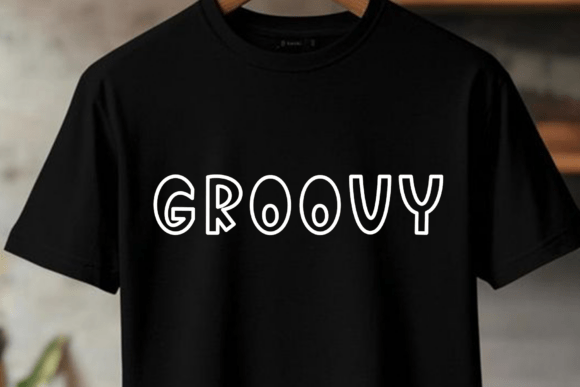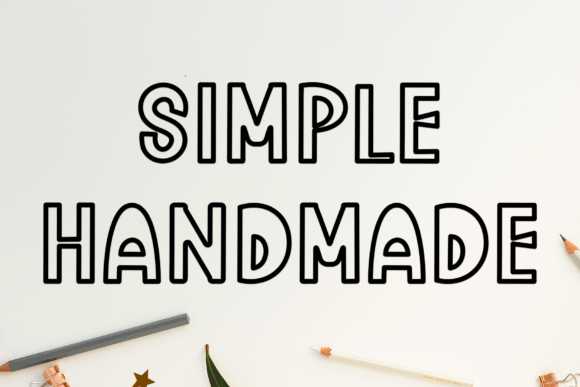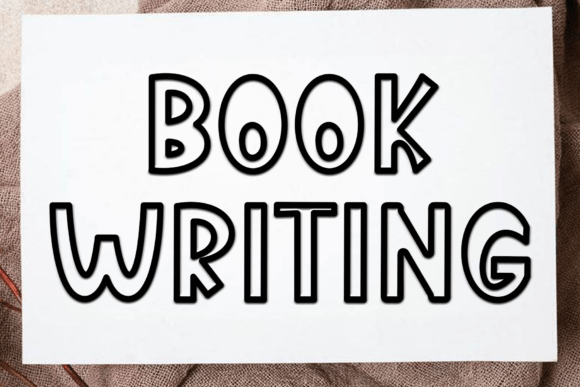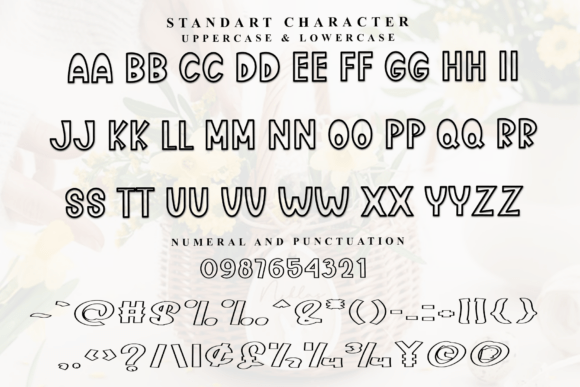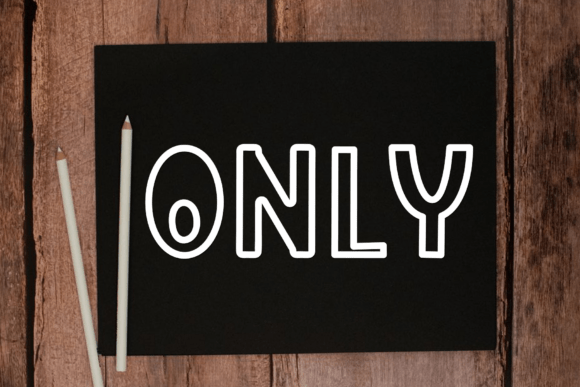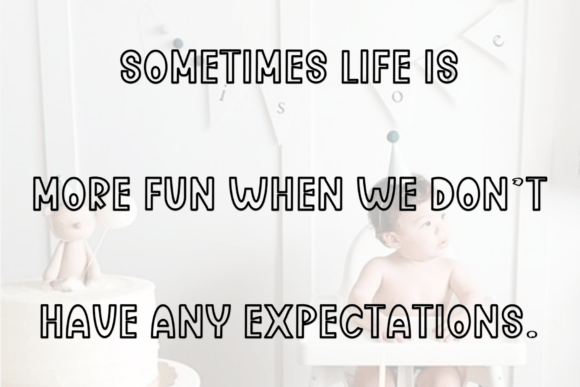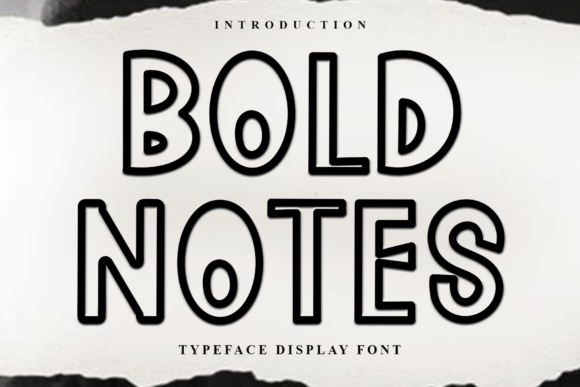
Introducing Bold Notes Font: The Ultimate Retro-Modern Display Typeface
In the world of typography, a good font can make all the difference in capturing the attention of your audience. If you’re a designer or craft looking for a typeface that exudes confidence and personality, look no further than Bold Notes Font. This clean and confident display font is perfect for headings, posters, and attention-grabbing titles, offering a bold personality while staying versatile and legible.
A Retro-Modern Outline Style
Bold Notes Font boasts a unique retro-modern outline style that is sure to turn heads. The font’s bold lines and geometric shapes create a striking visual effect that is reminiscent of classic design from the past, yet still feels fresh and modern. This makes it perfect for designers and crafts looking to add a touch of nostalgia to their work, while still keeping it contemporary and relevant.
Perfect for Editorial Design and Branding Projects
Bold Notes Font is particularly well-suited for editorial design and branding projects that require a punch. Whether you’re working on a magazine spread, a poster campaign, or a brand identity project, this font is sure to make a statement. Its bold personality and confident style make it perfect for grabbing the attention of your audience and communicating your message in a clear and concise way.
Key Features of Bold Notes Font
• Clean and confident design: Bold Notes Font features a clean and confident design that is perfect for headings, posters, and attention-grabbing titles.
• Retro-modern outline style: The font’s retro-modern outline style gives it a unique and striking visual effect that is sure to turn heads.
• Versatile and legible: Despite its bold personality, Bold Notes Font remains versatile and legible, making it perfect for a wide range of design applications.
• Perfect for editorial design and branding projects: This font is particularly well-suited for editorial design and branding projects that require a punch.
How to Use Bold Notes Font
Bold Notes Font is easy to use and can be incorporated into a wide range of design projects. Here are a few ideas to get you started:
• Headings and titles: Use Bold Notes Font to create bold and attention-grabbing headings and titles for your design projects.
• Posters and flyers: This font is perfect for creating striking posters and flyers that are sure to grab the attention of your audience.
• Branding and identity: Use Bold Notes Font to create a bold and confident brand identity that sets you apart from the competition.
• Editorial design: This font is perfect for editorial design projects, such as magazine spreads and newspaper articles.
Why Choose Bold Notes Font?
There are many fonts to choose from, but Bold Notes Font stands out from the crowd for several reasons:
• Unique and striking design: Bold Notes Font features a unique and striking design that is sure to turn heads.
• Versatile and legible: Despite its bold personality, this font remains versatile and legible, making it perfect for a wide range of design applications.
• Easy to use: Bold Notes Font is easy to use and can be incorporated into a wide range of design projects.
• Perfect for designers and crafts: This font is perfect for designers and crafts looking to add a touch of personality and confidence to their work.
In conclusion, Bold Notes Font is a clean and confident display font that is perfect for designers and crafts looking to add a touch of personality and confidence to their work. Its unique retro-modern outline style, versatility, and legibility make it perfect for a wide range of design applications, from editorial design and branding projects to posters and flyers. If you’re looking for a font that makes a statement, look no further than Bold Notes Font.